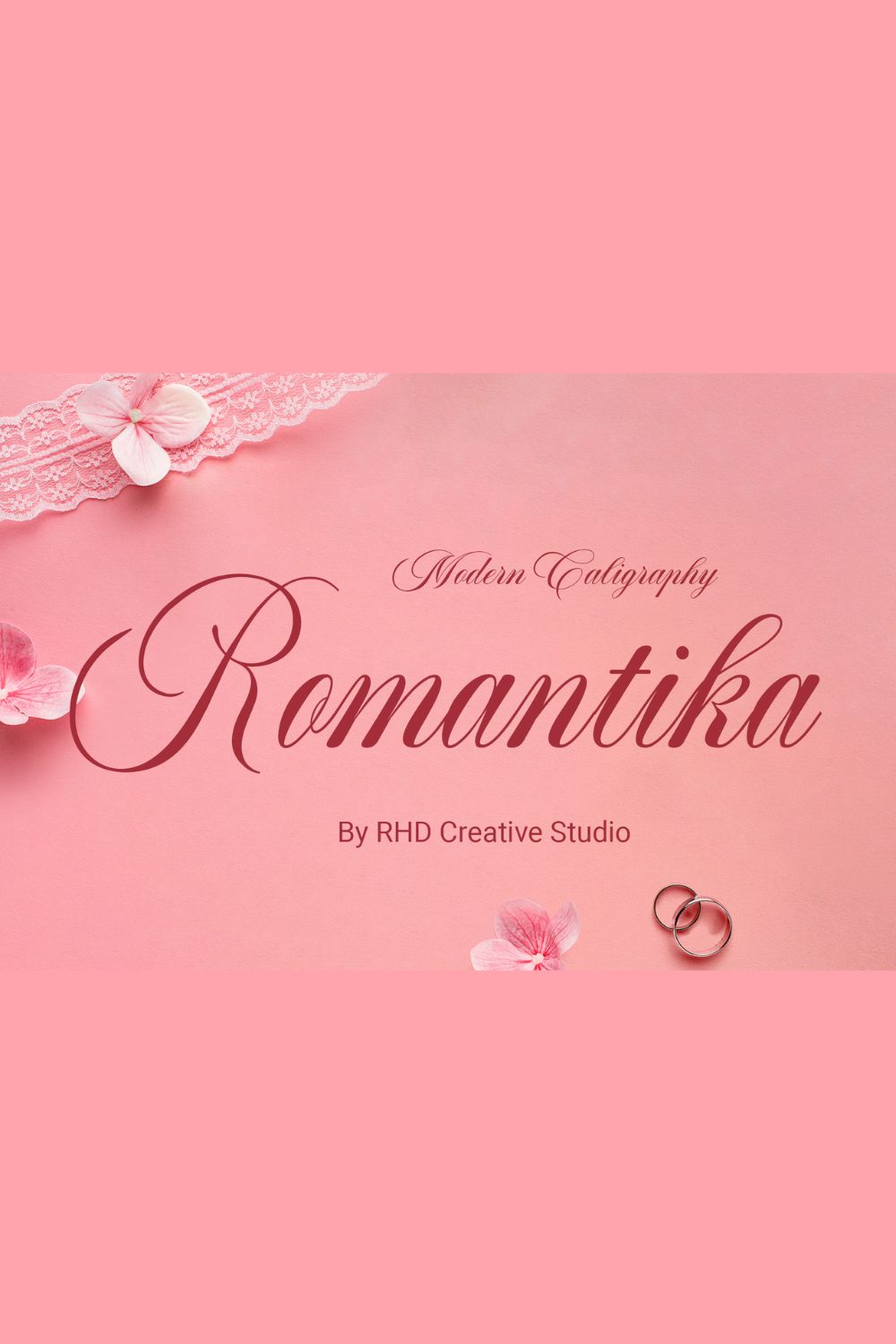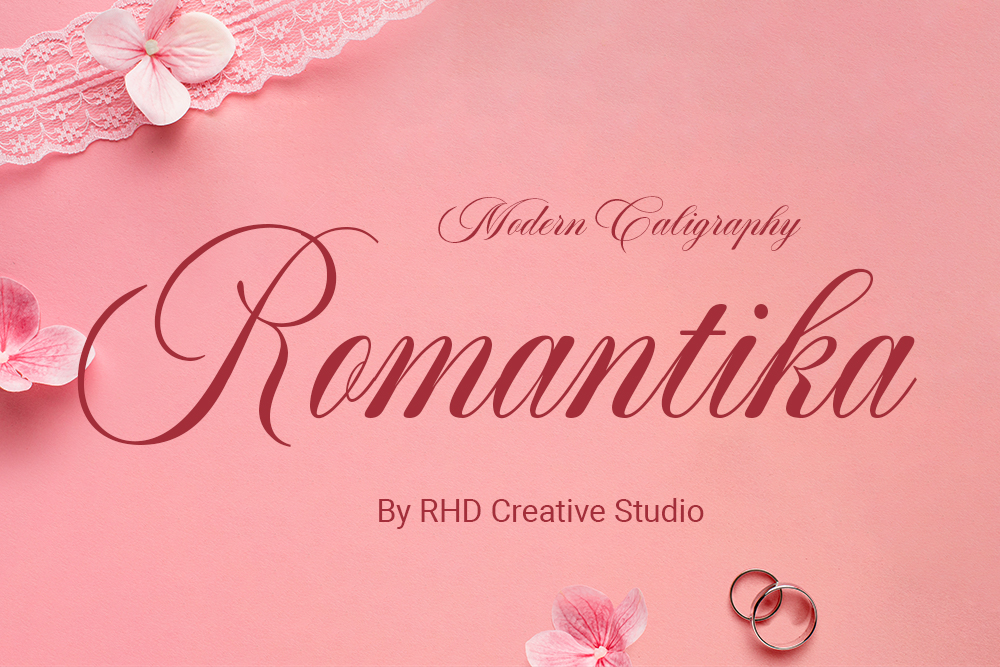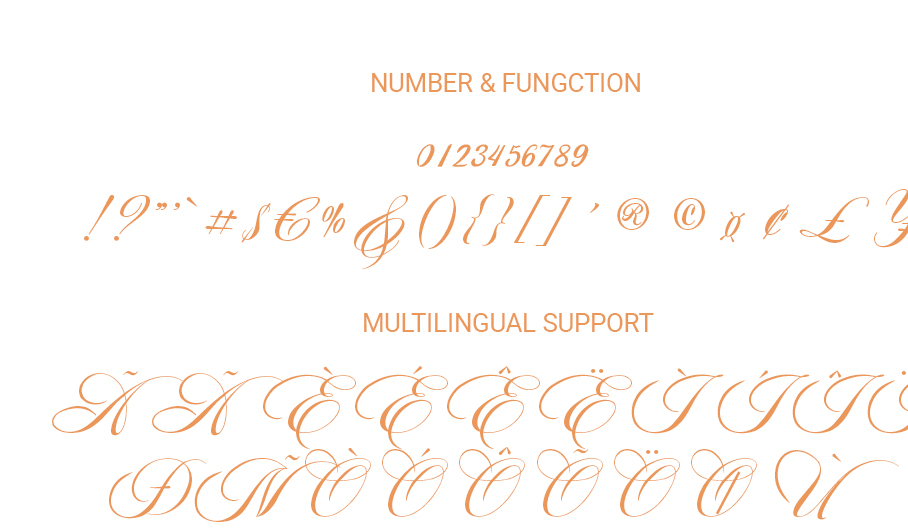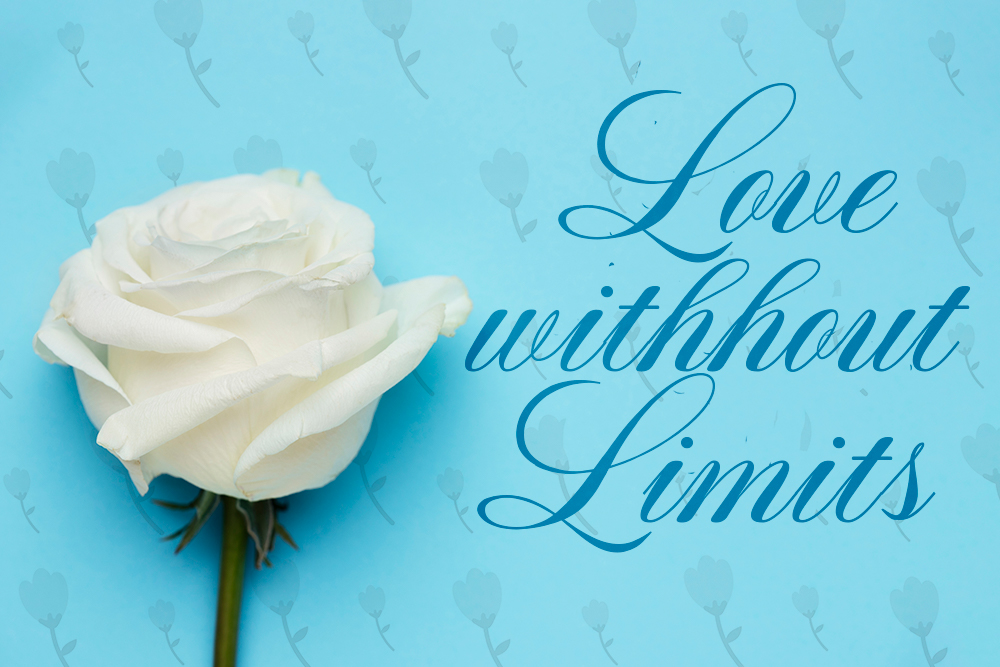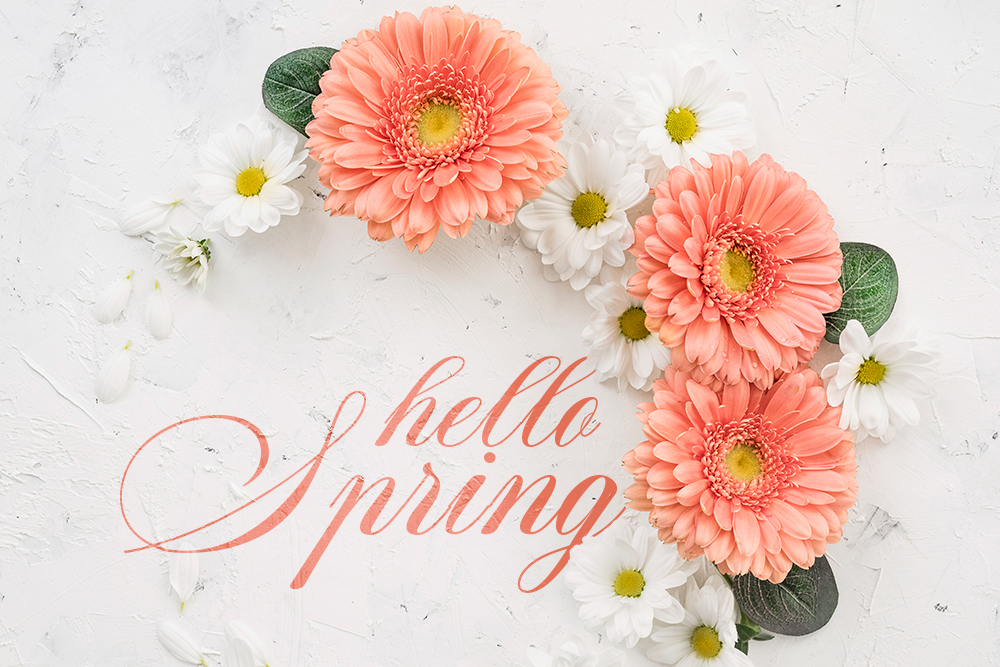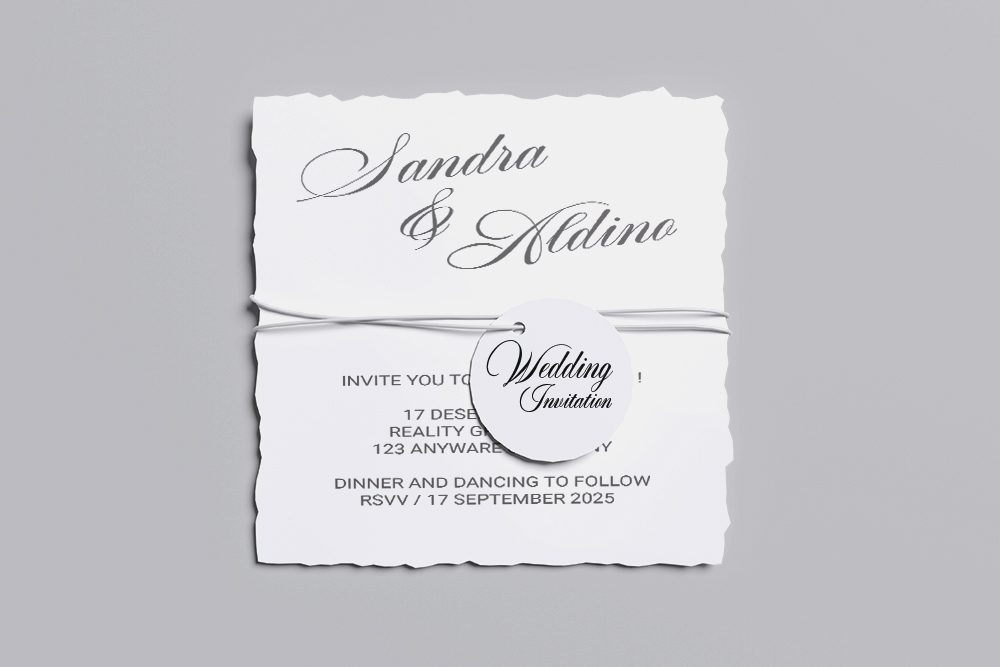
Hello everyone, I would like to introduce Romantica Caligraphy Modern Font.
Romantica Caligraphy Modern Font with Handmade character. Romantica bring authentic Caligraphy Modern font to make your design project stand out! Romantica is a perfectly choice for any creative endeavor, creating, modern, chic, lifestyle design such as logotype, title, cover, branding, invitations, wedding designs, display and magazine, social media posts, advertisements, printed quotes, product packaging, corporate brand, product designs, labels, photography, watermarks, special events and any other project with modern touch.
FEATURES
– Uppercase and Lowercase letters
– Numbering and Punctuations
– Ligarure
– Multilingual Support